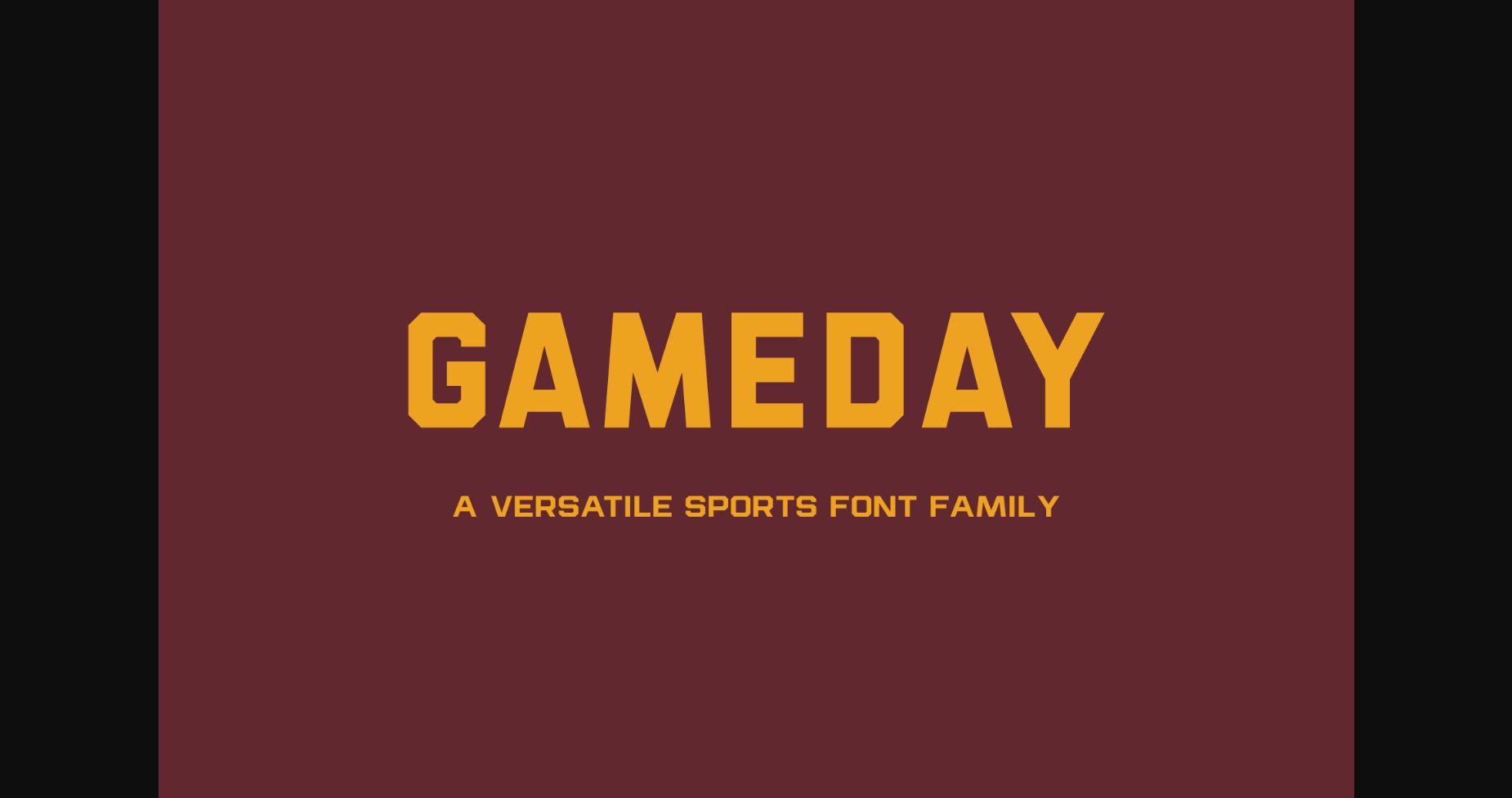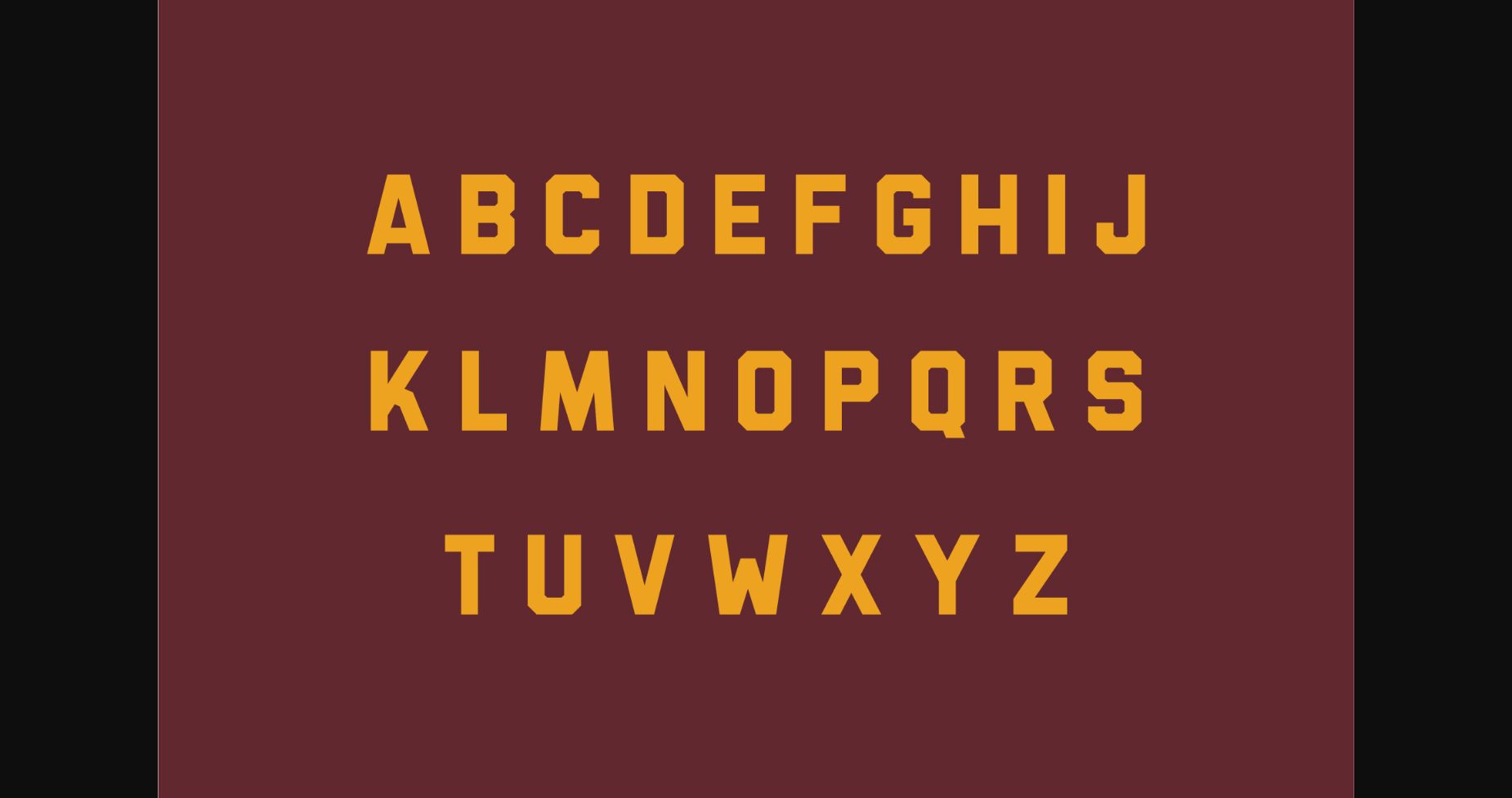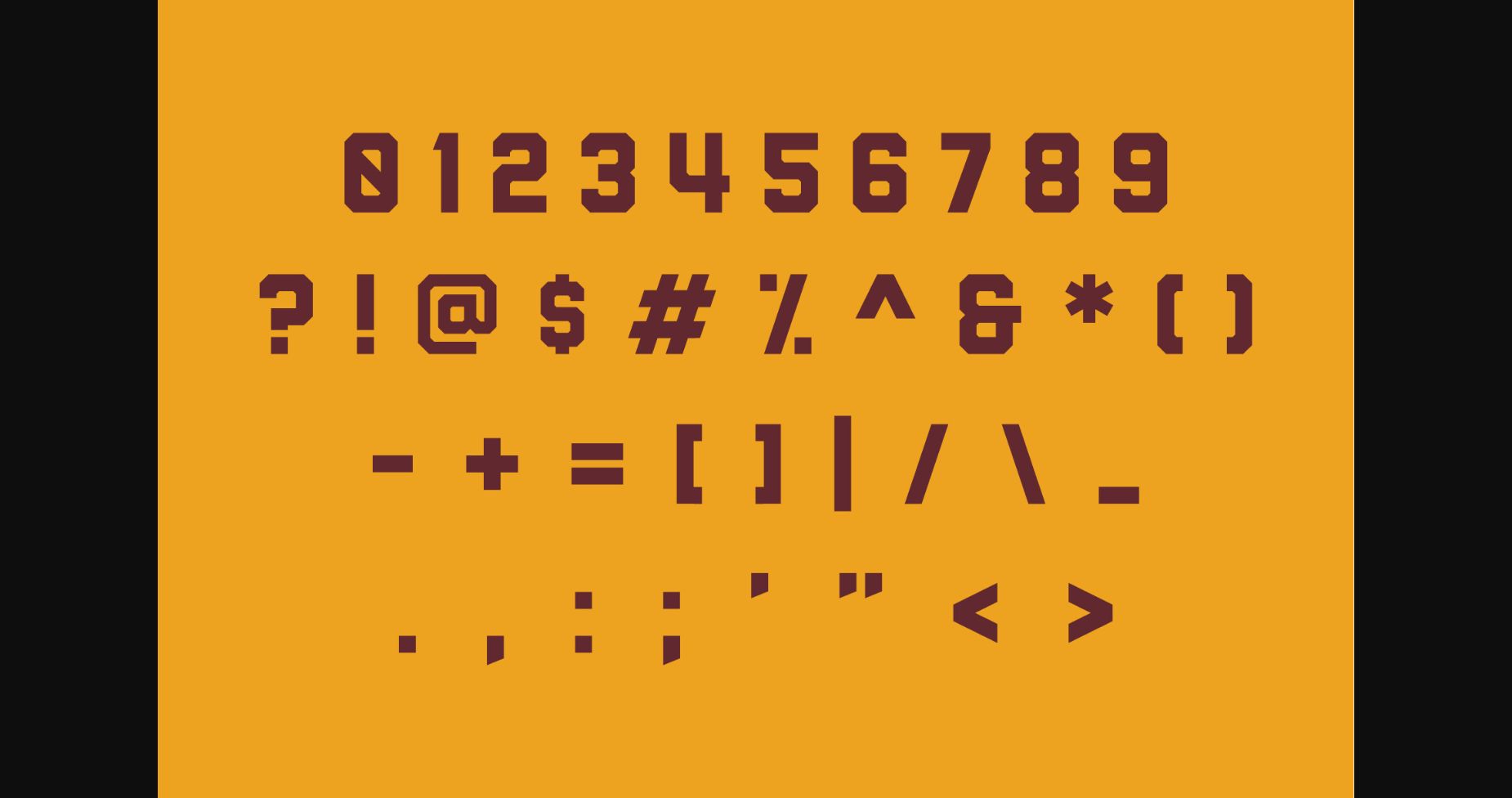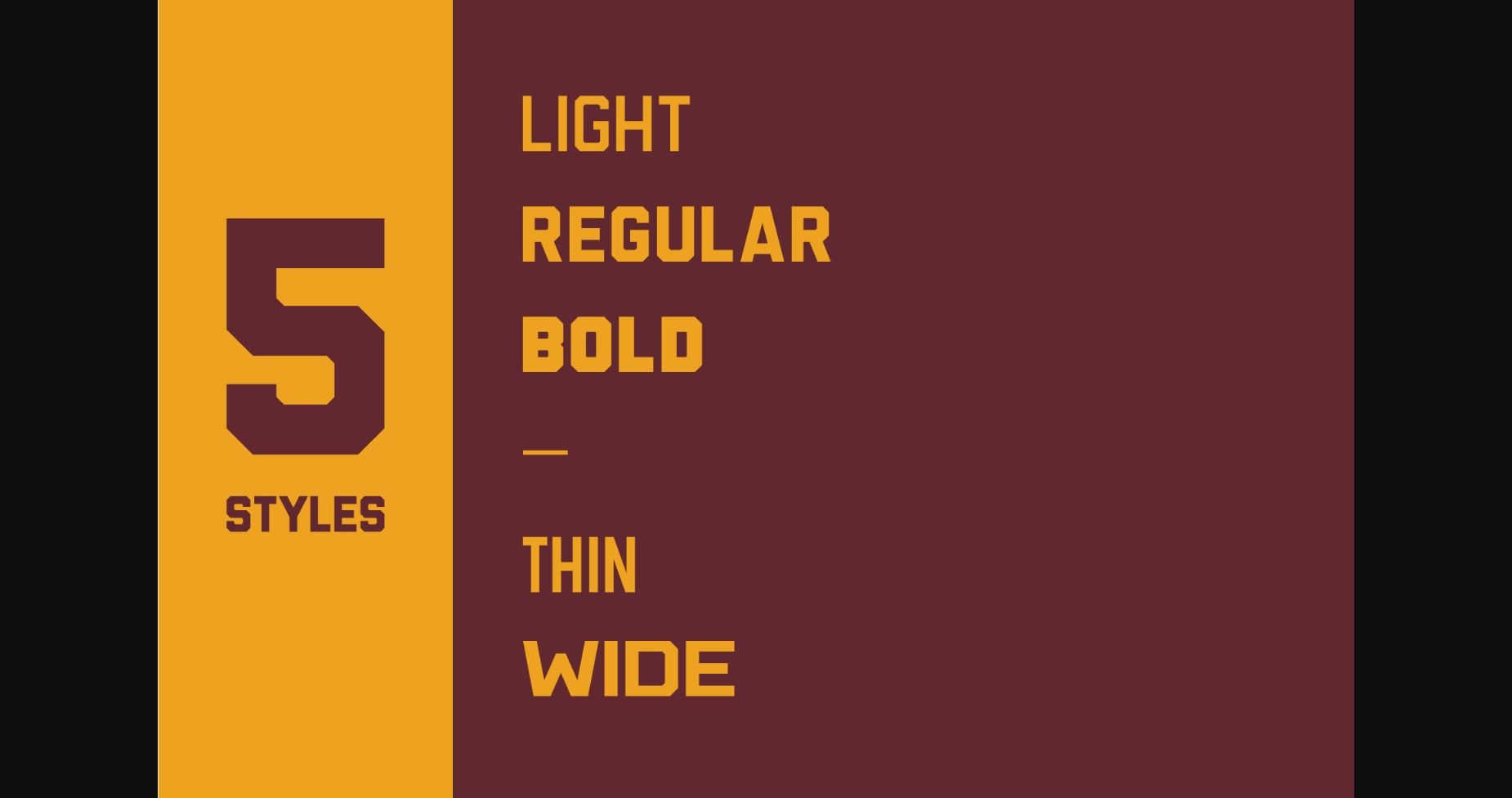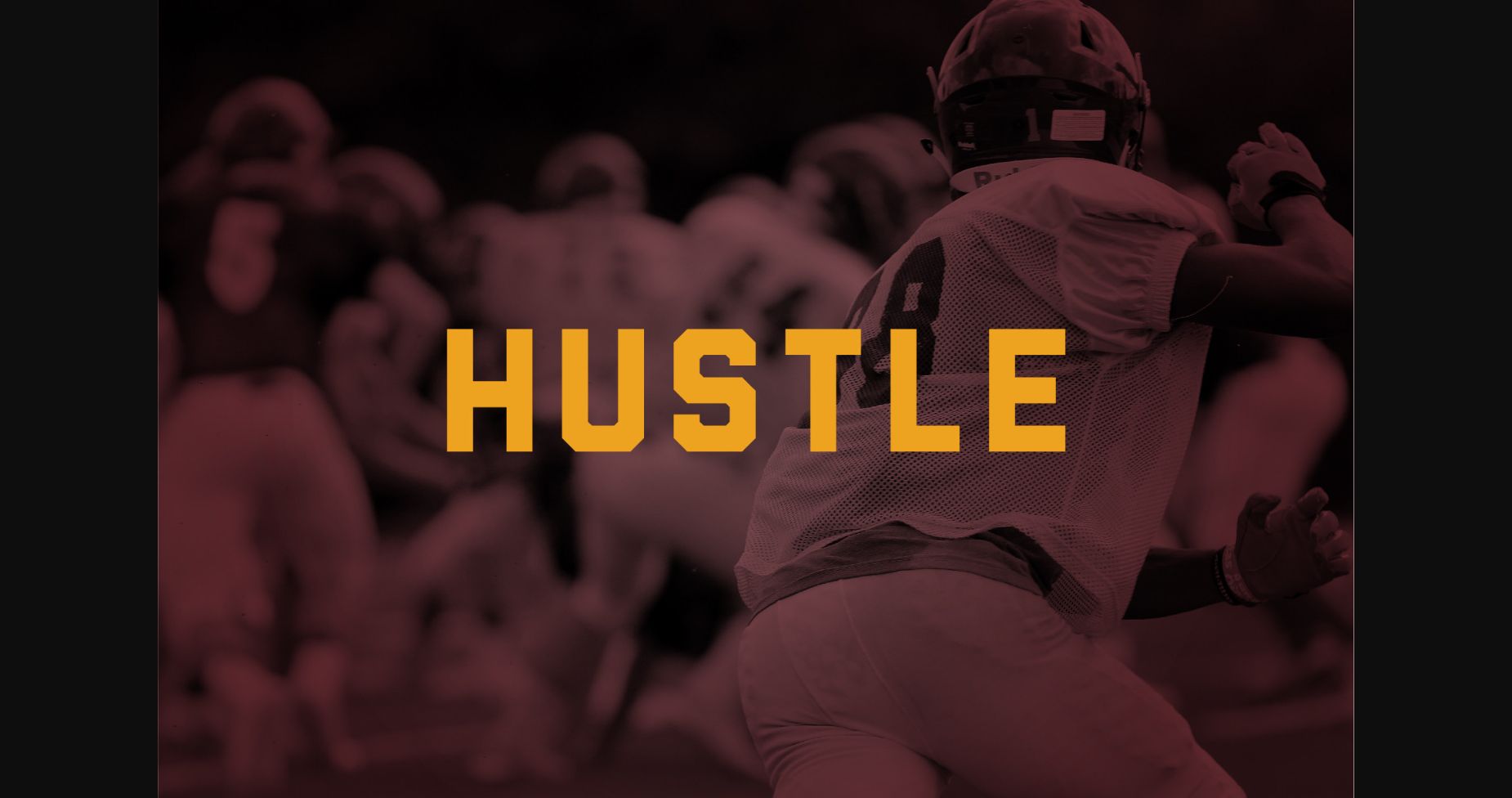
Gameday Font
About Gameday Font
Gameday is a blocky sans serif font inspired by the sports branding world. Its extremely versatile style makes it the perfect choice for a wide range of creative designs! Add it to your creations, and marvel at its wonderful and powerful effect!